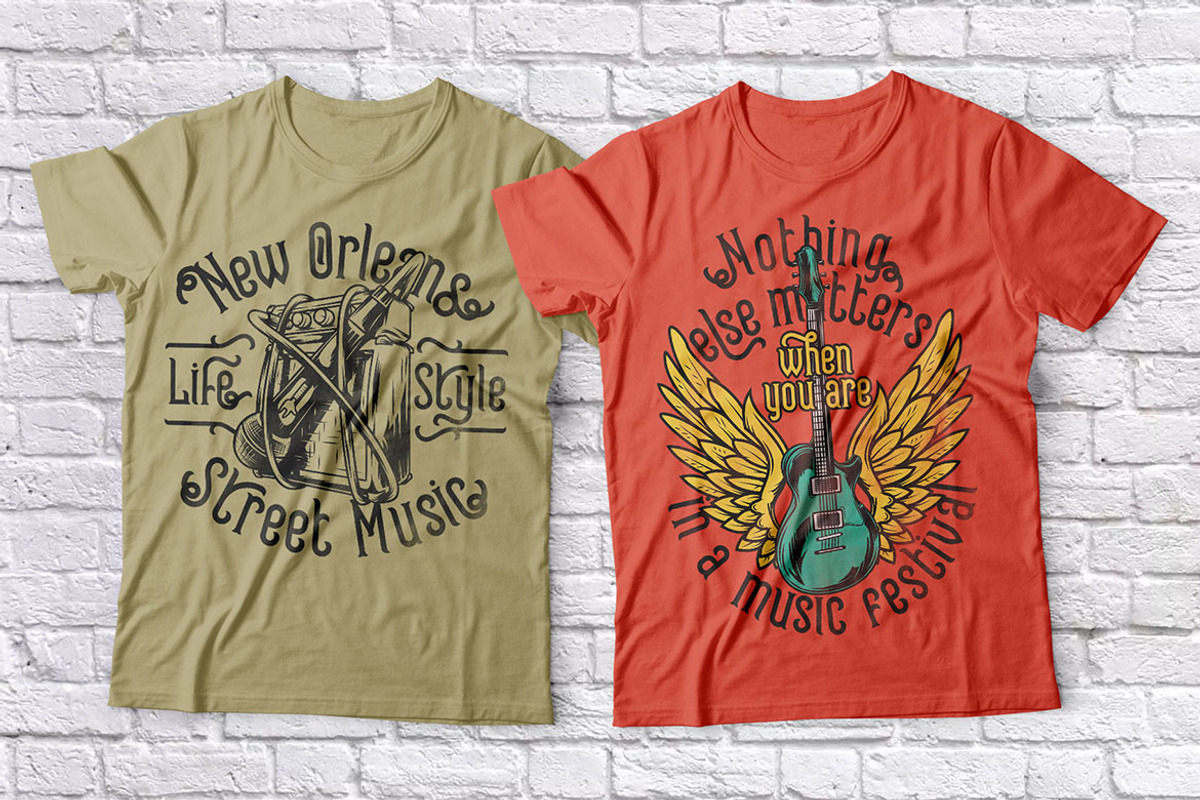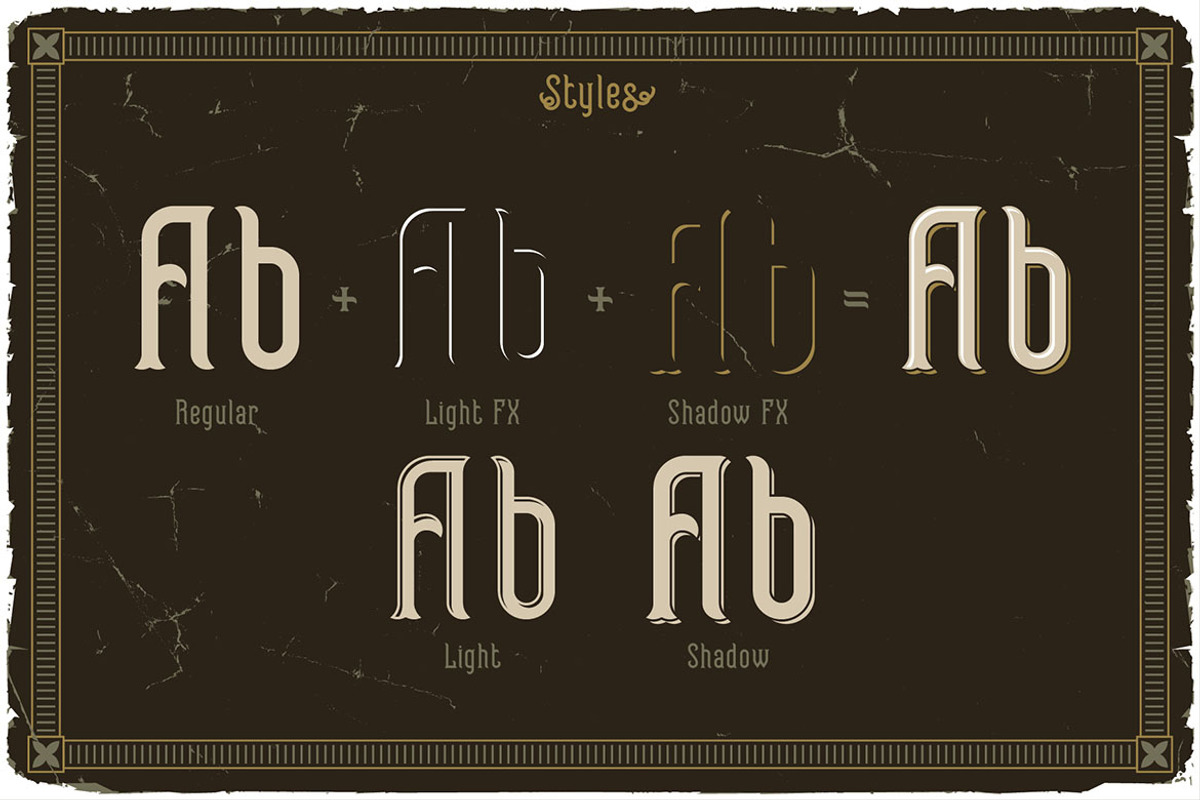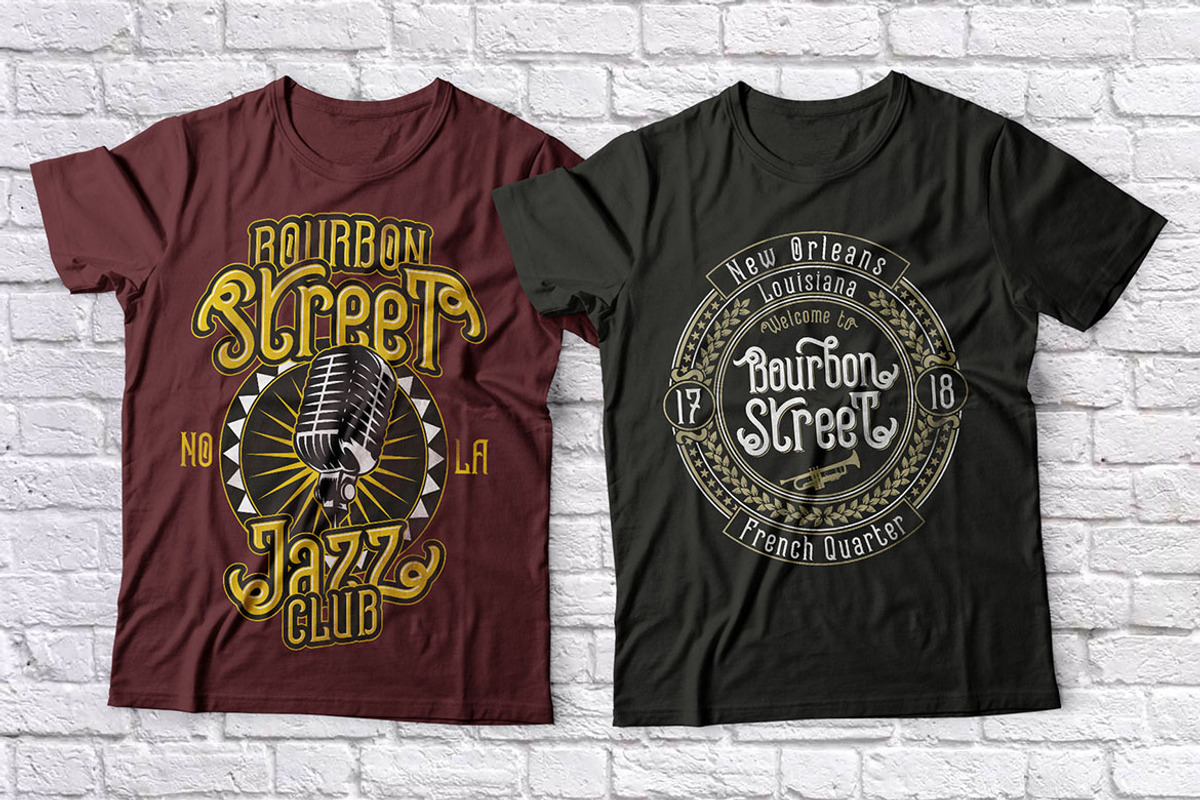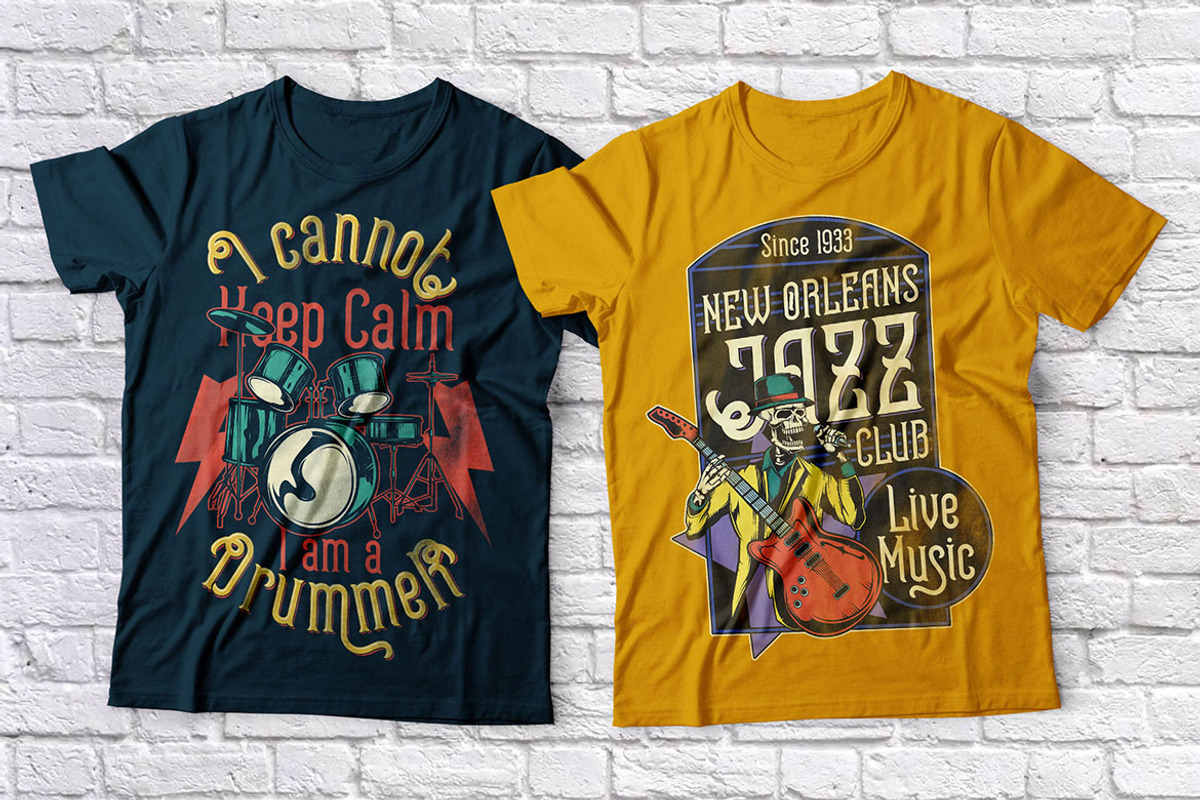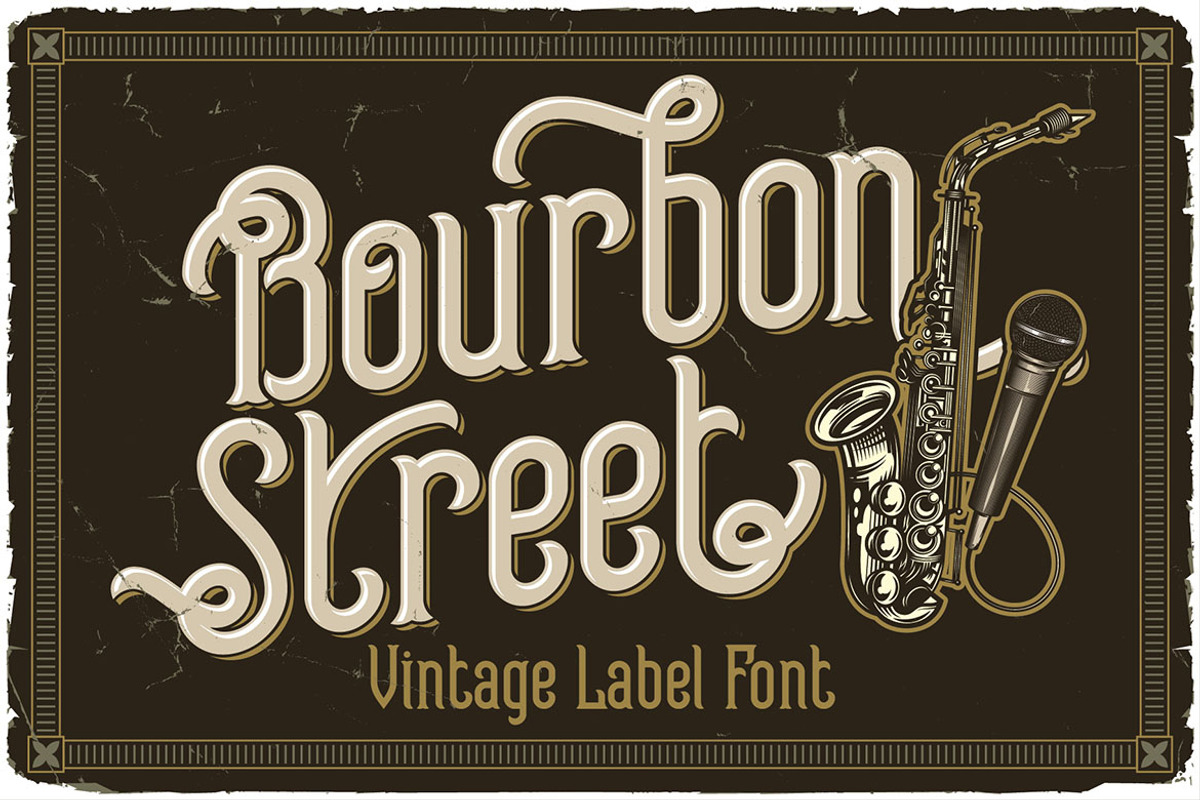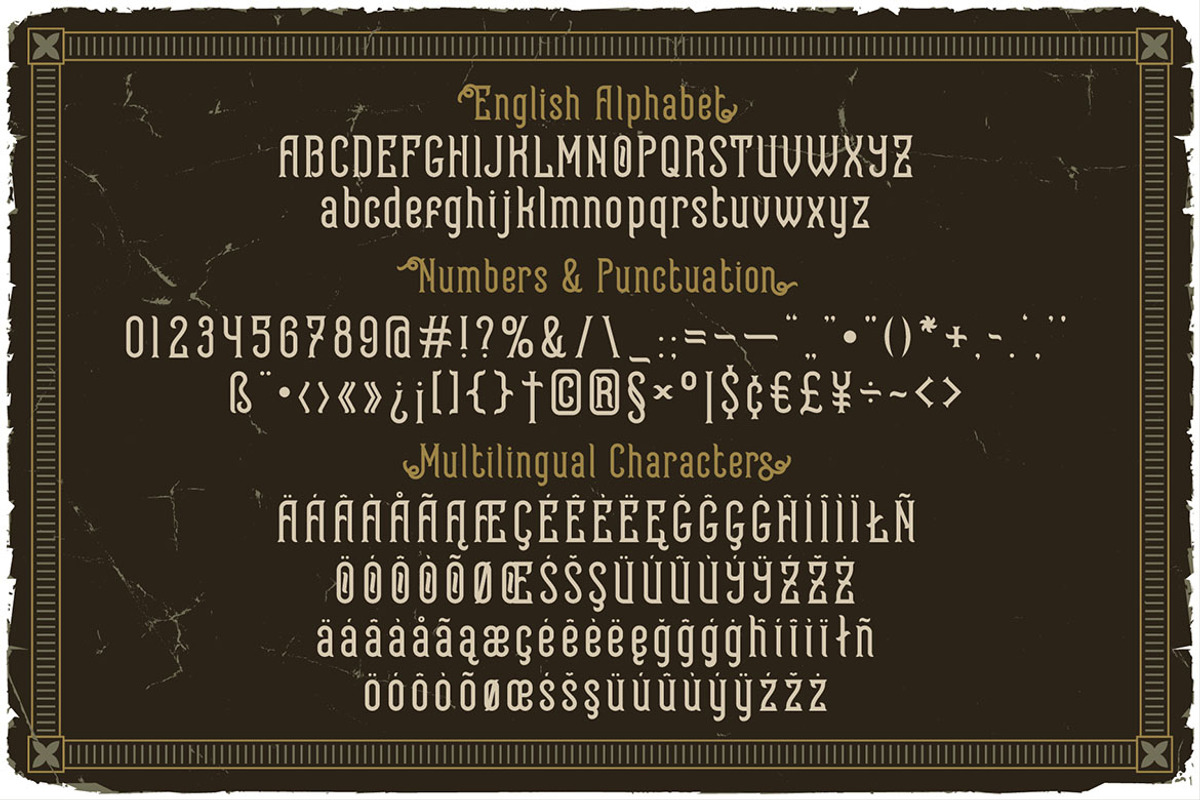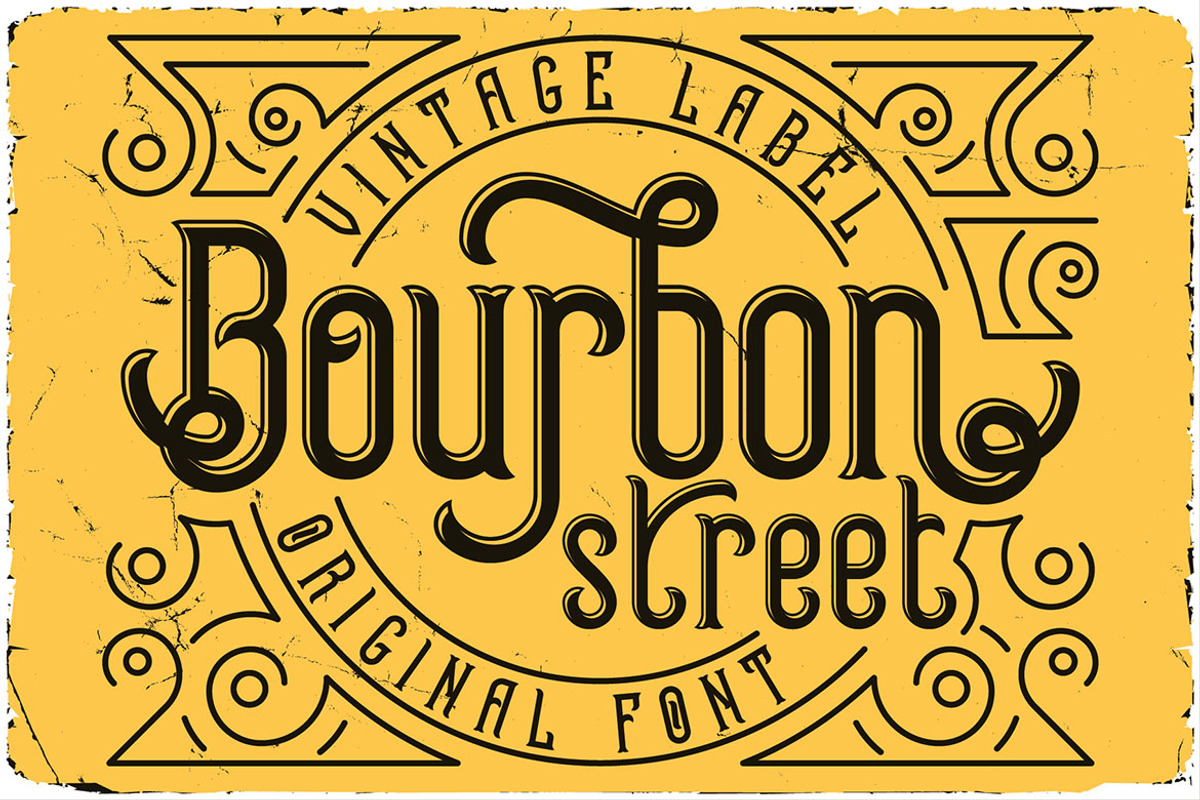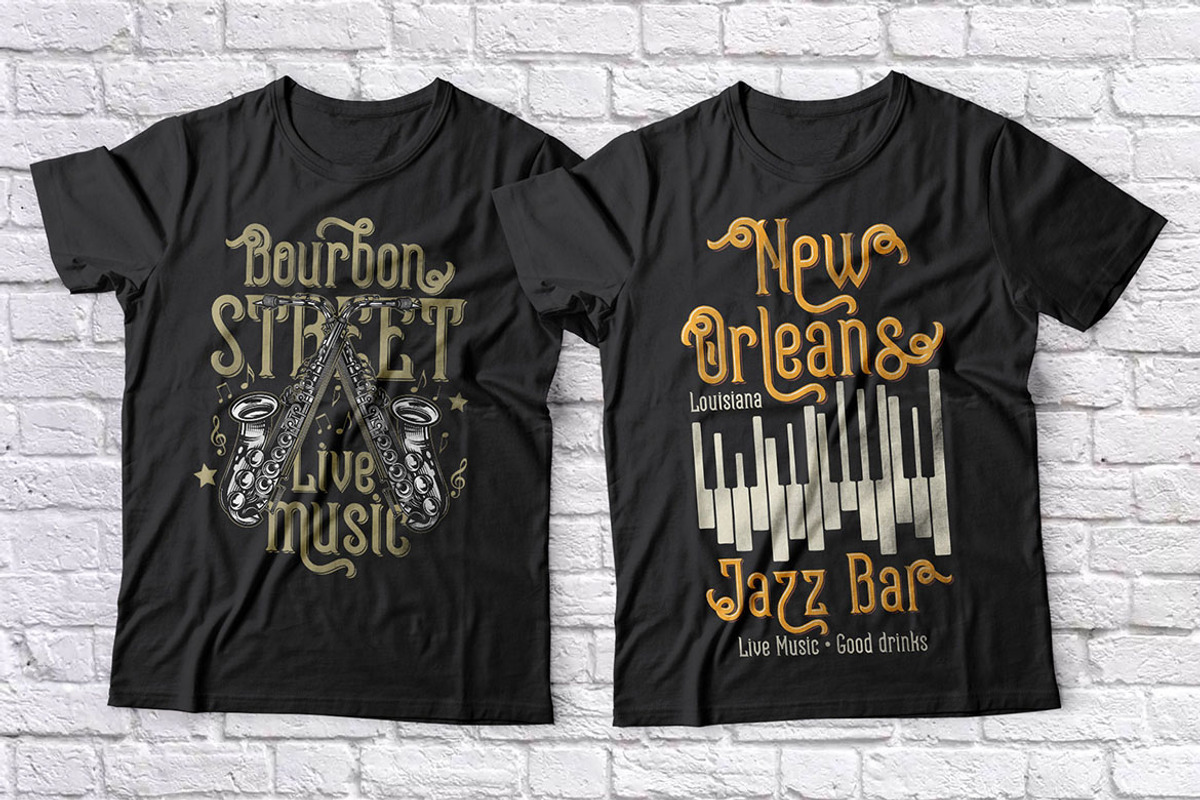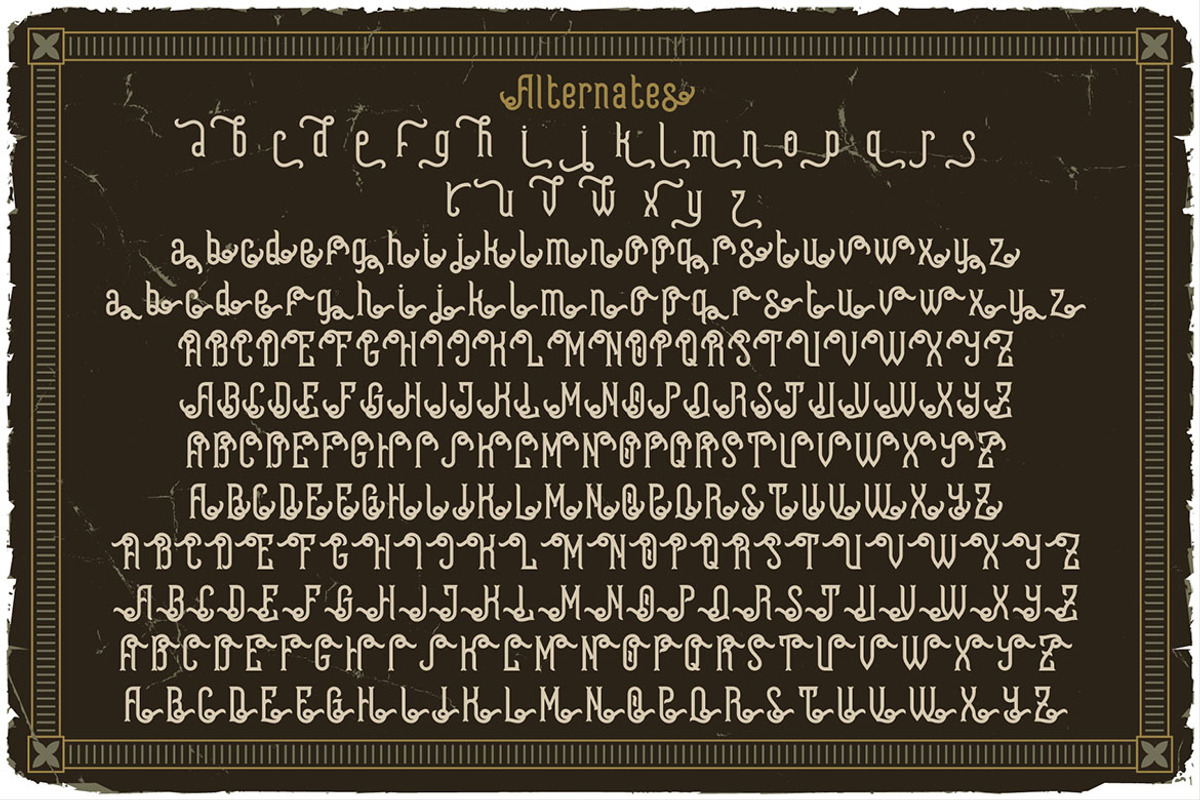
Bourbon Street Display Font
Unique monoline, vintage & decorative serif font. Comes with multilingual support & a lot of alternates - great for your new logo or branding project.
- 5 font versions
- Multilingual support and lot of alternates
- Great for retro or vintage style branding projects